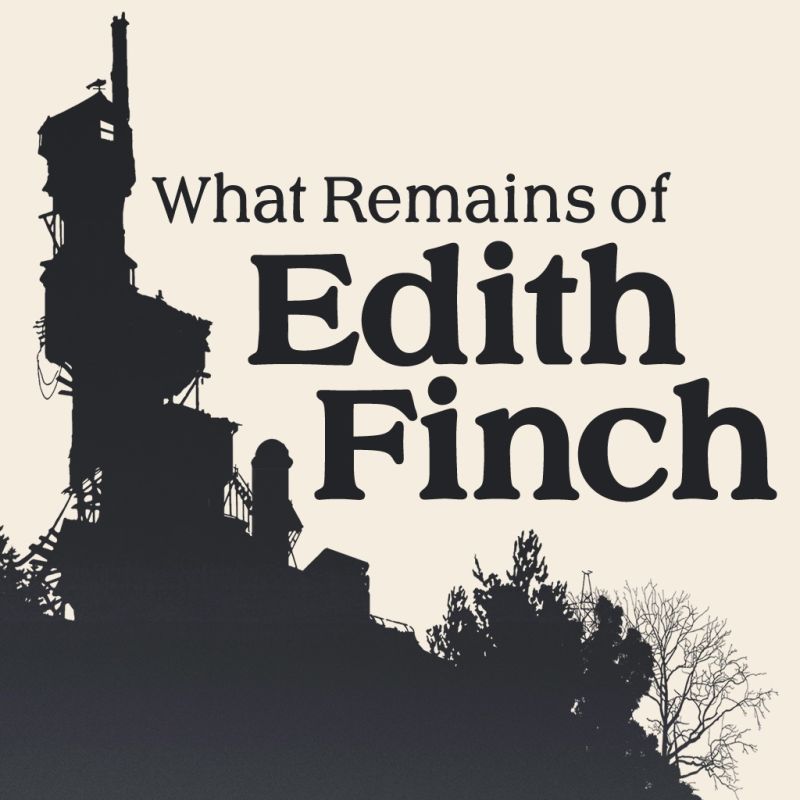
What Remains of Edith Finch Font
Scenario Bold is most probably used for the "Edith Finch" part of the logo of the video game. This venetian serif by Softmaker was originally designed by Freda Sack in 1979. The “What Remains of” part of the logo is written in Nobility Casual by Digital Graphic Labs and can be downloaded for Free in the Fonts Used Section.